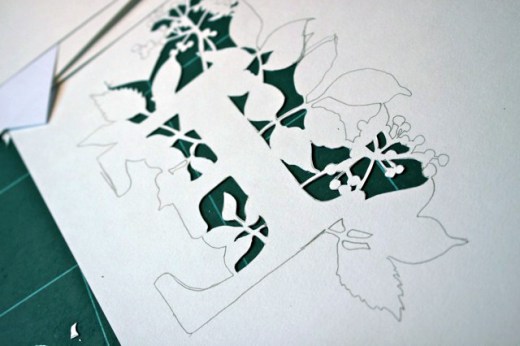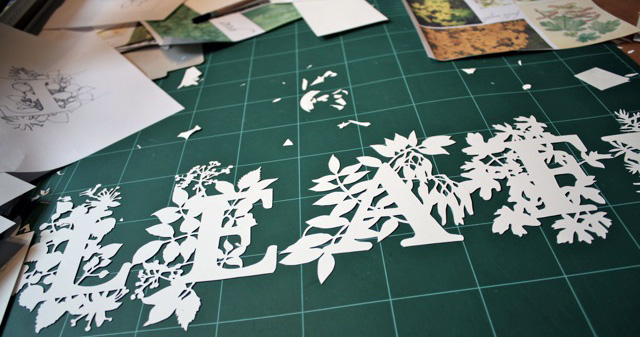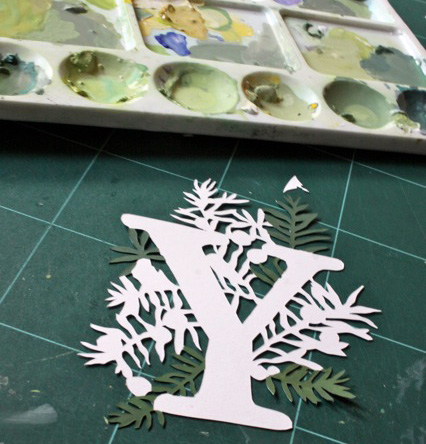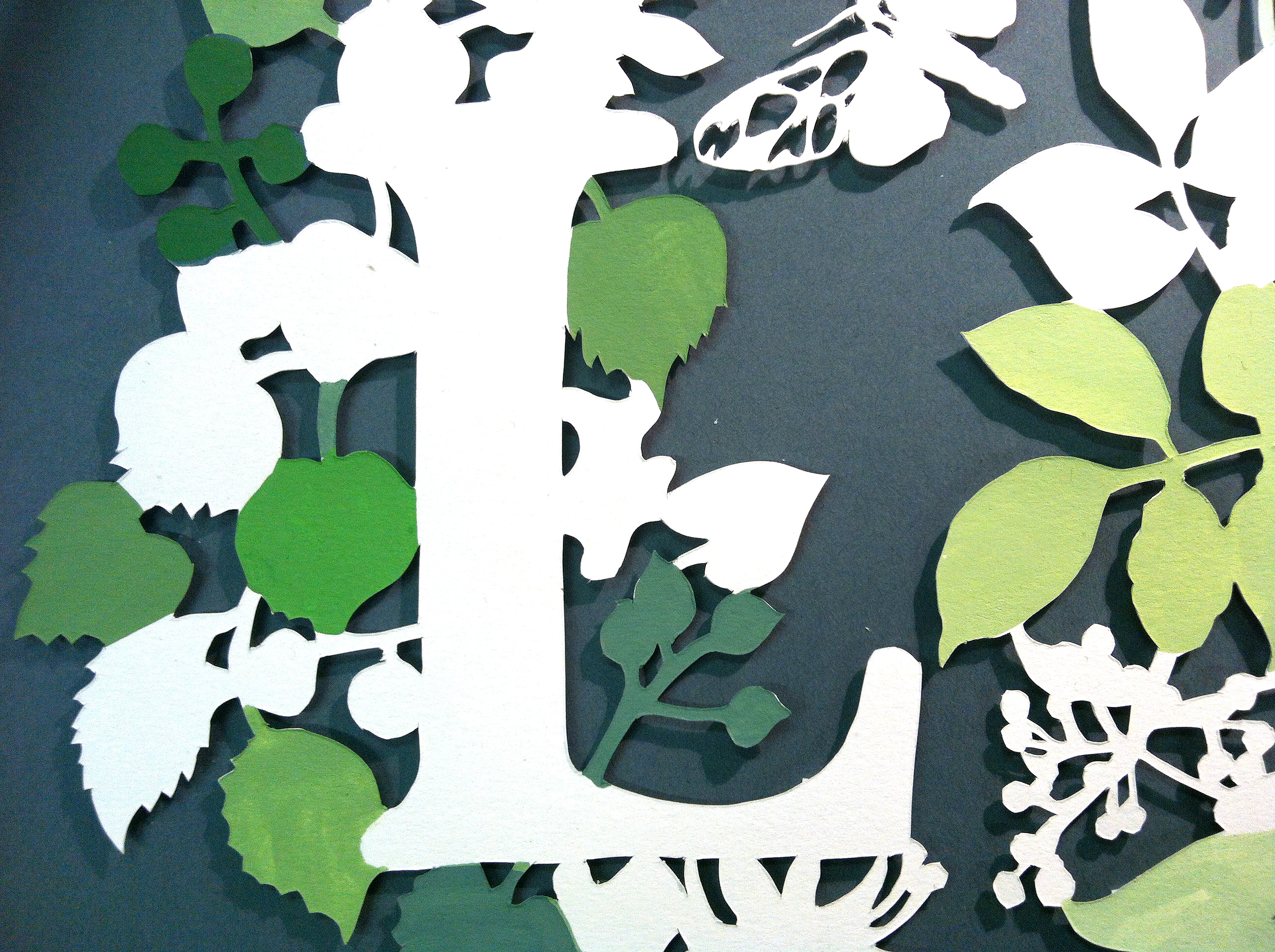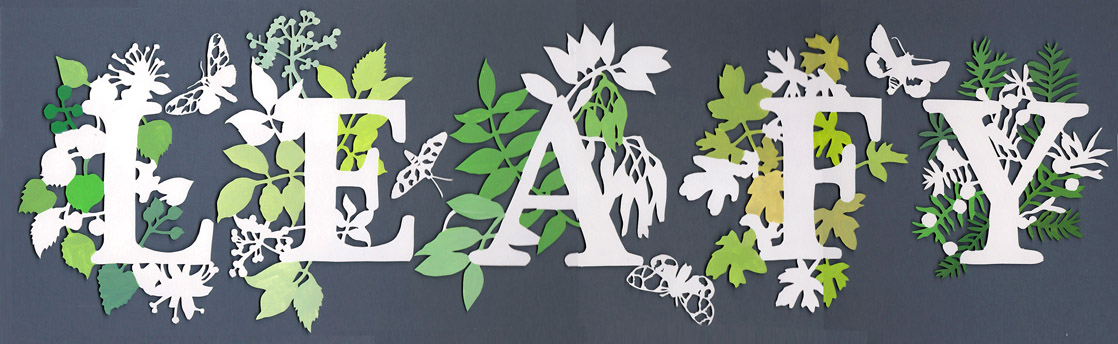
‘Leafy’ by Sarah Morpeth
“I lived in London for a decade in my previous life as a lawyer, and I loved it’s green spaces. I missed the countryside so much, and London’s wonderful parks gave me an important contact with nature, and a way of mapping the changing seasons. Not just its parks – so many London streets are lined with trees. I was thinking about all the different kinds of trees in London, and chose ‘Leafy’ as my word.”
“For each letter I found a tree that’s common in urban areas and began with the initials of the word ‘LEAFY’. So we have Lime, Elder, Ash, Field Maple and Yew.”
“My work always starts with drawing and sketchbook work; I then do a final drawing and use a scalpel to cut out the details; the last step is handpainting each piece with gouache paint, which has a lovely natural matte quality.”
Morpeth is an artist living and working in the heart of Northumberland. She makes artist’s books and works in cut paper, ranging from unique constructed books to limited and unlimited editions and multiples and wall-hung pieces. Her work combines a range of processes, including stitching, bookbinding, hand painting, printing and hand and machine cutting.
“My starting point is always some text – the inspiration for many of my pieces comes from a 1945 film called ‘I Know Where I’m Going’ (Powell & Pressburger). The film script, characters, cinematography and film structure influence my work – bits of the script trickle into my pieces, snippets of dialogue, forming and reforming, taking on new meanings and telling different stories. I also use half-remembered lines of songs and poems, so that text forms an integral part of many of my pieces, shaping their form in the process.”